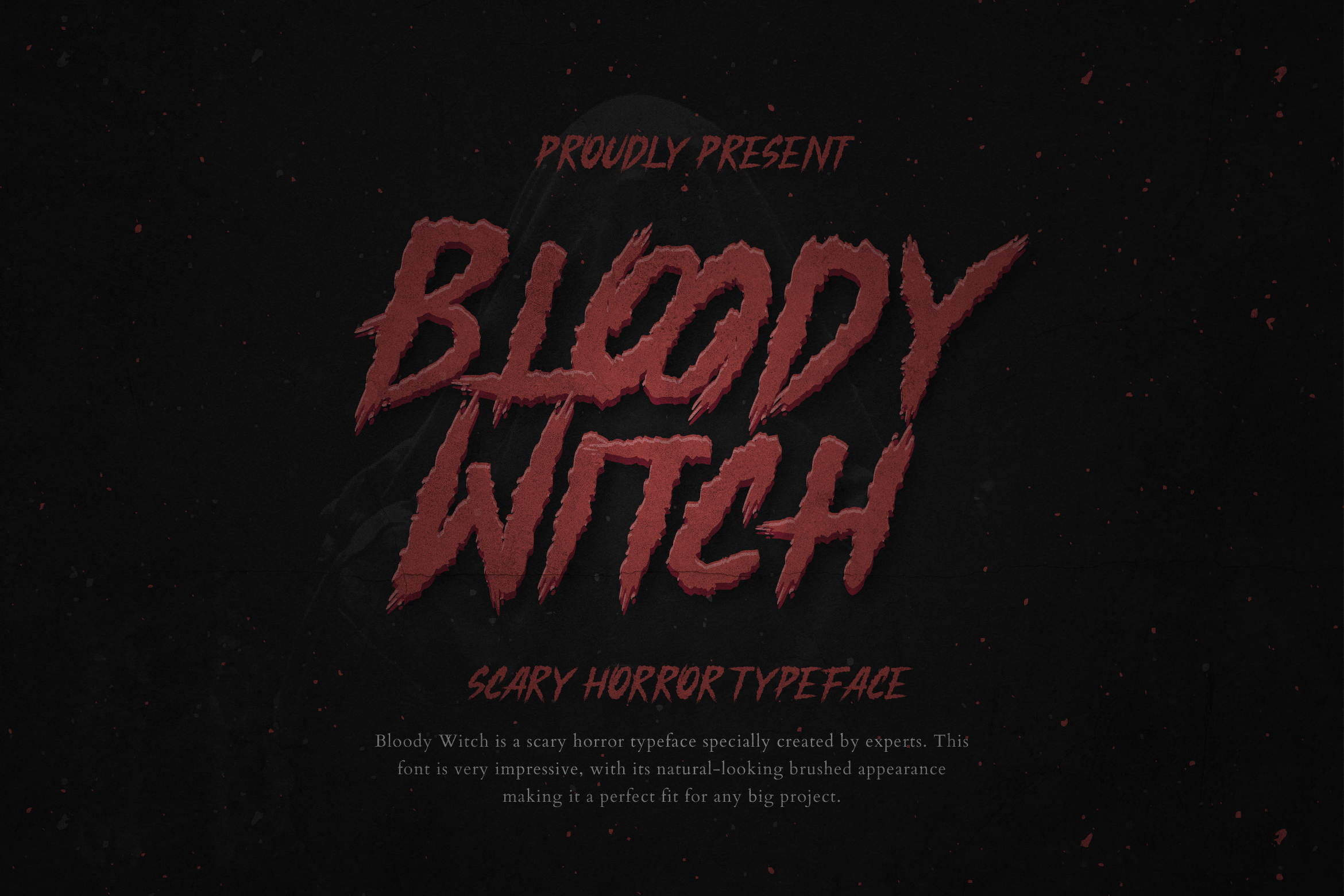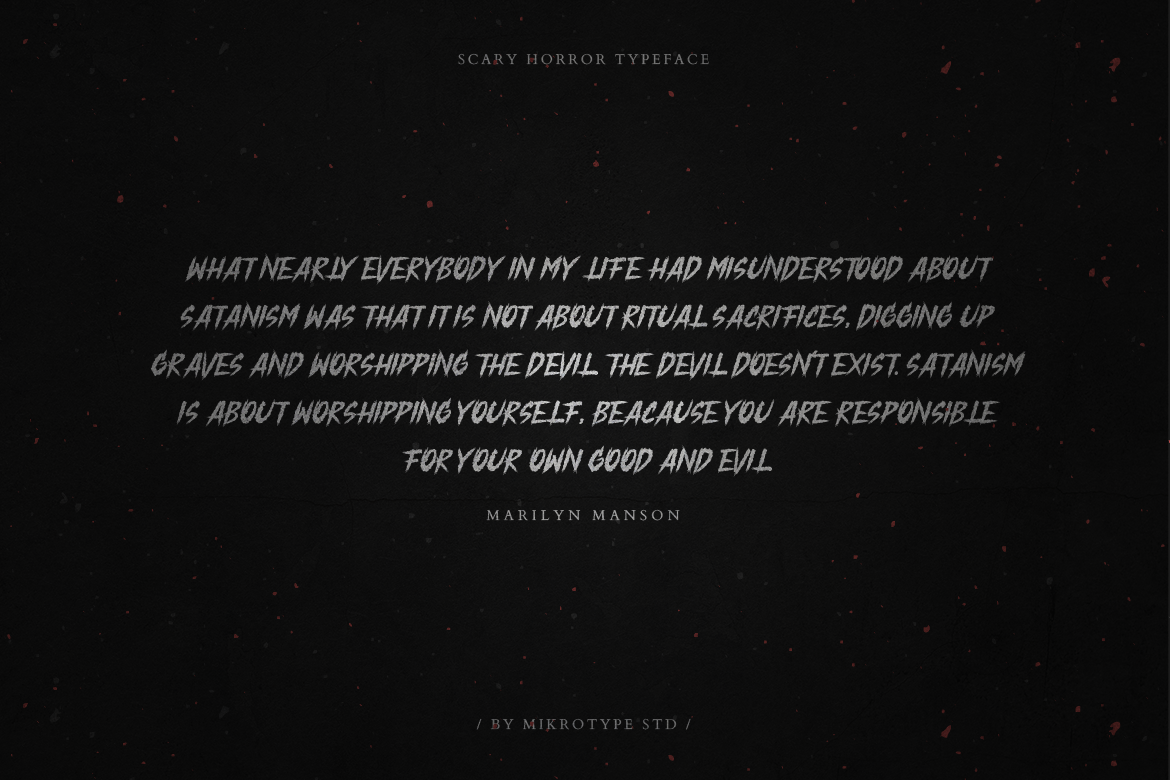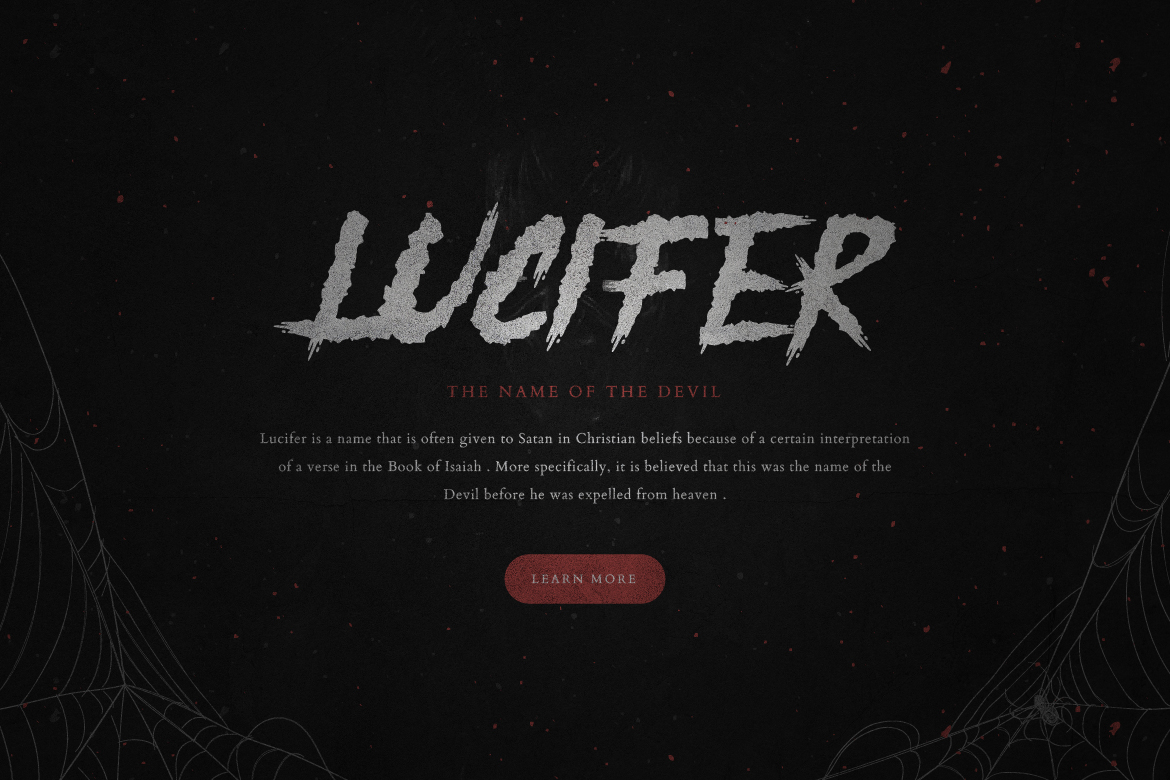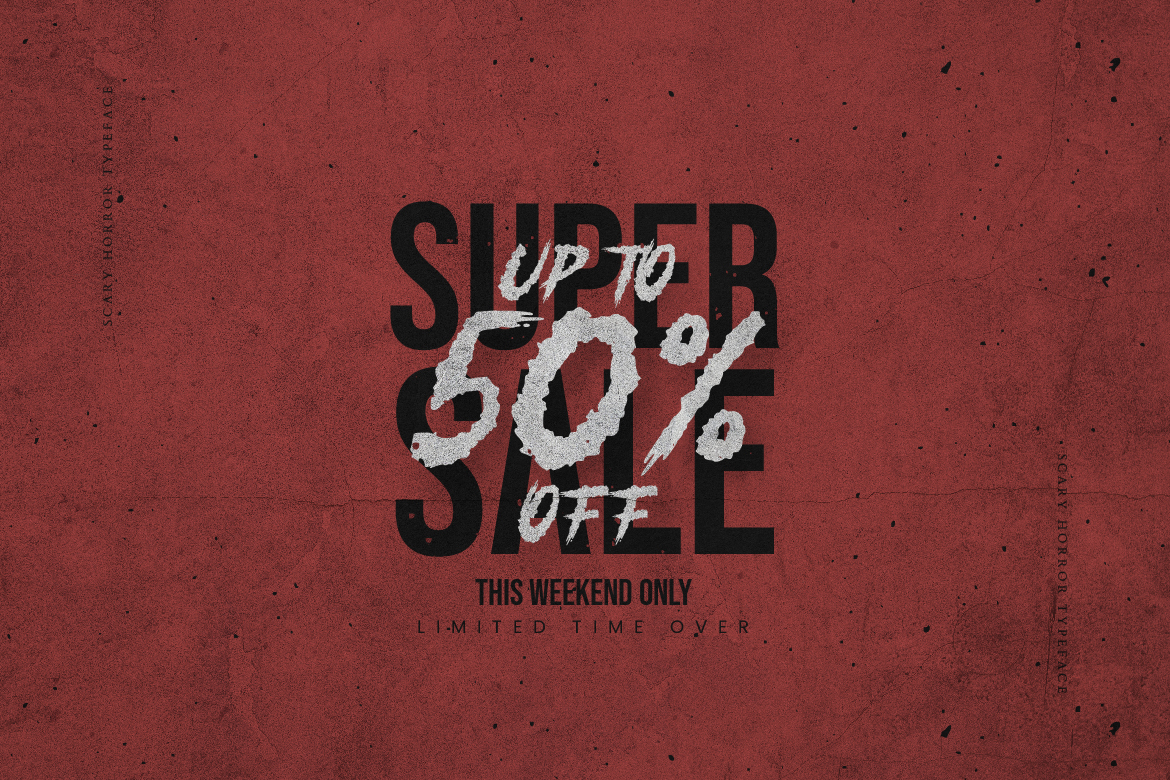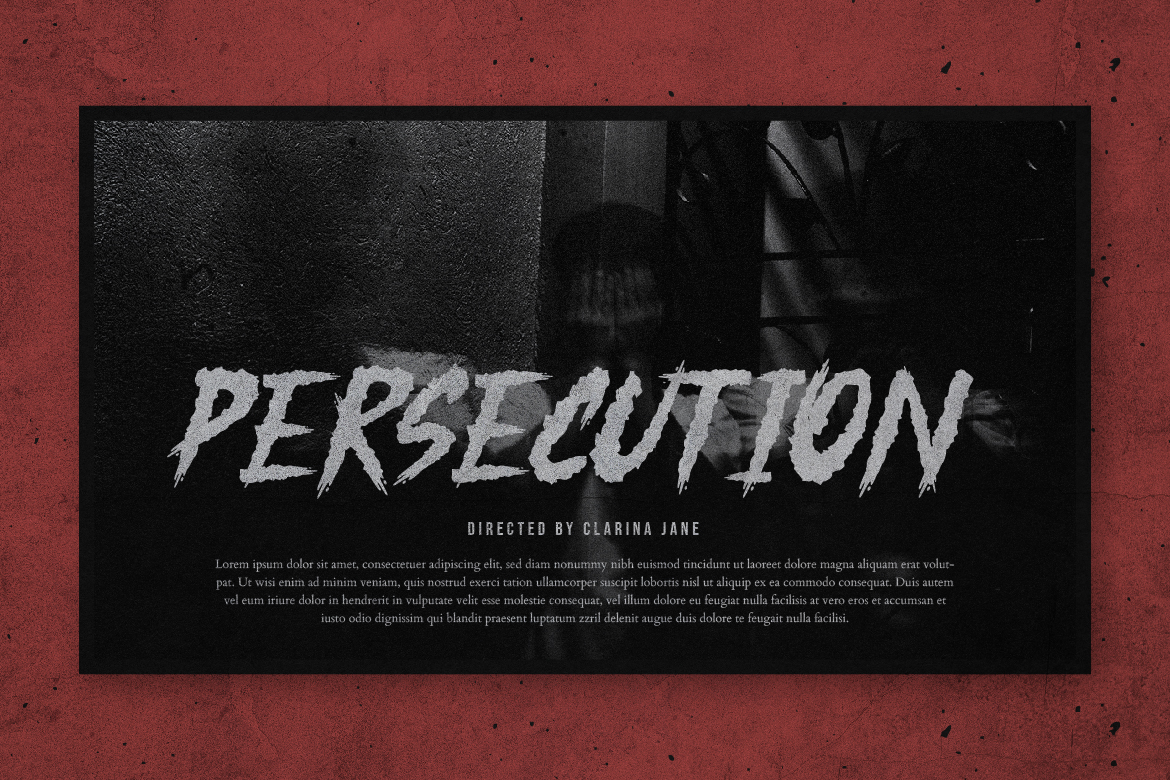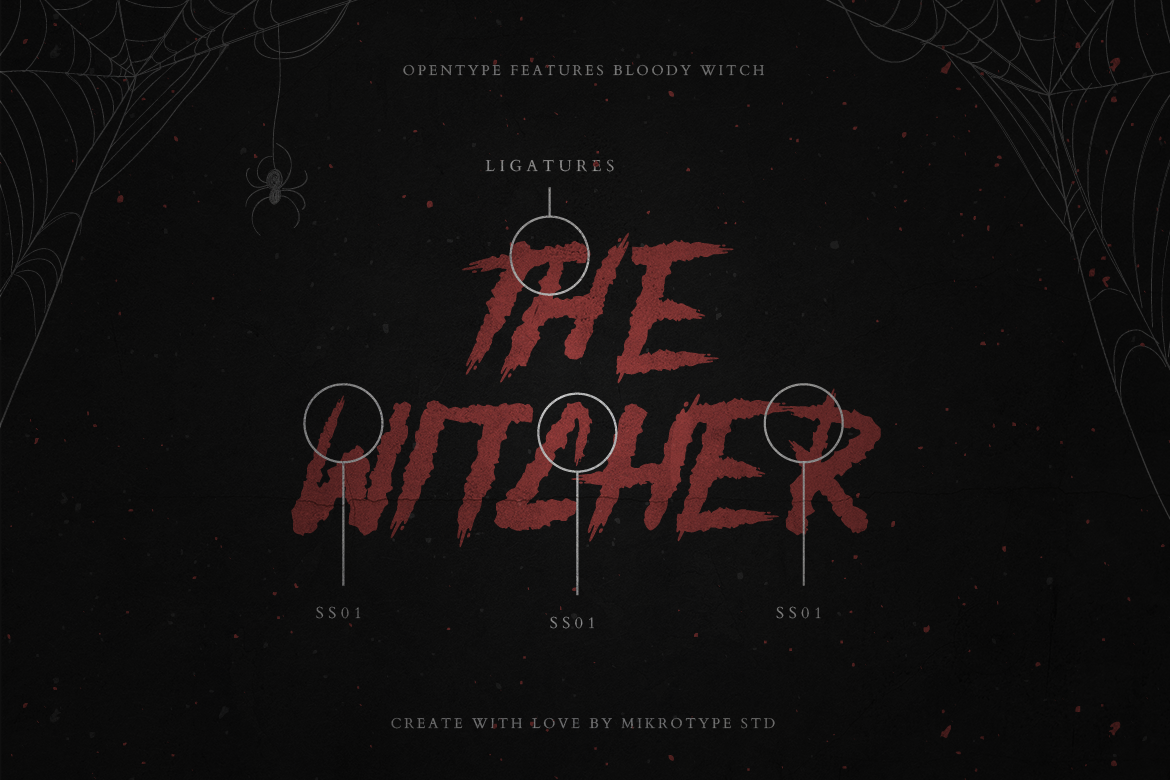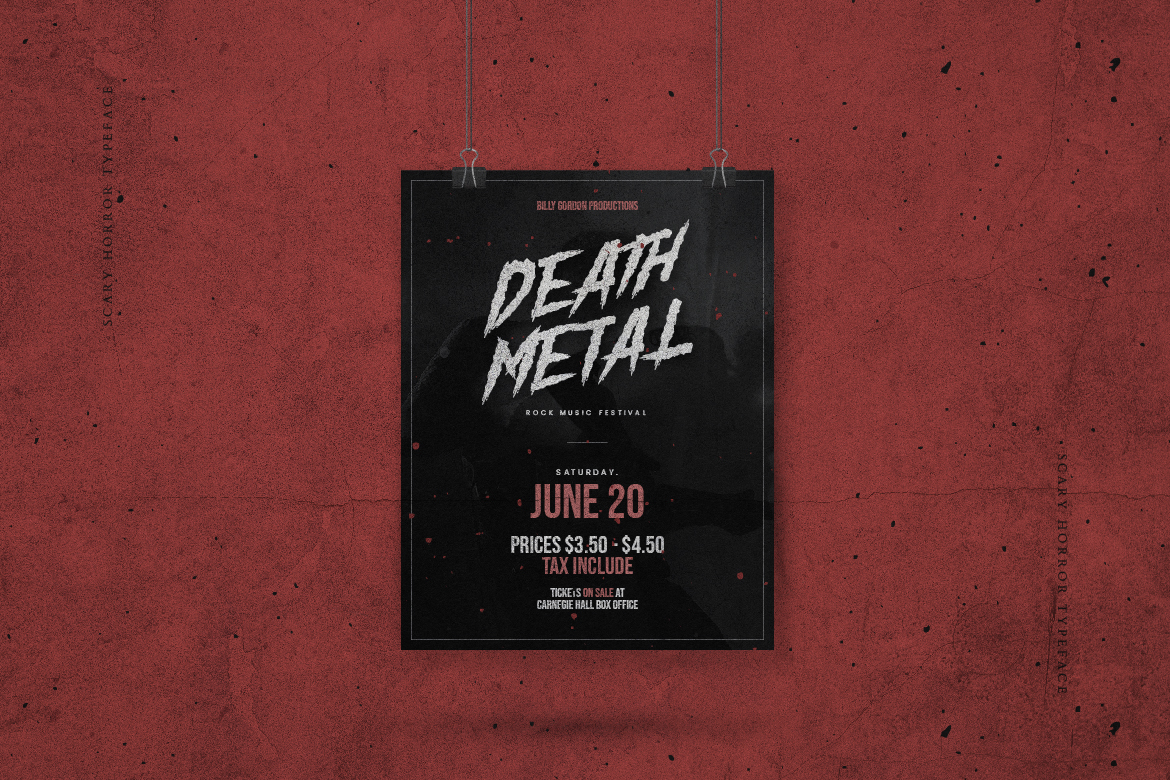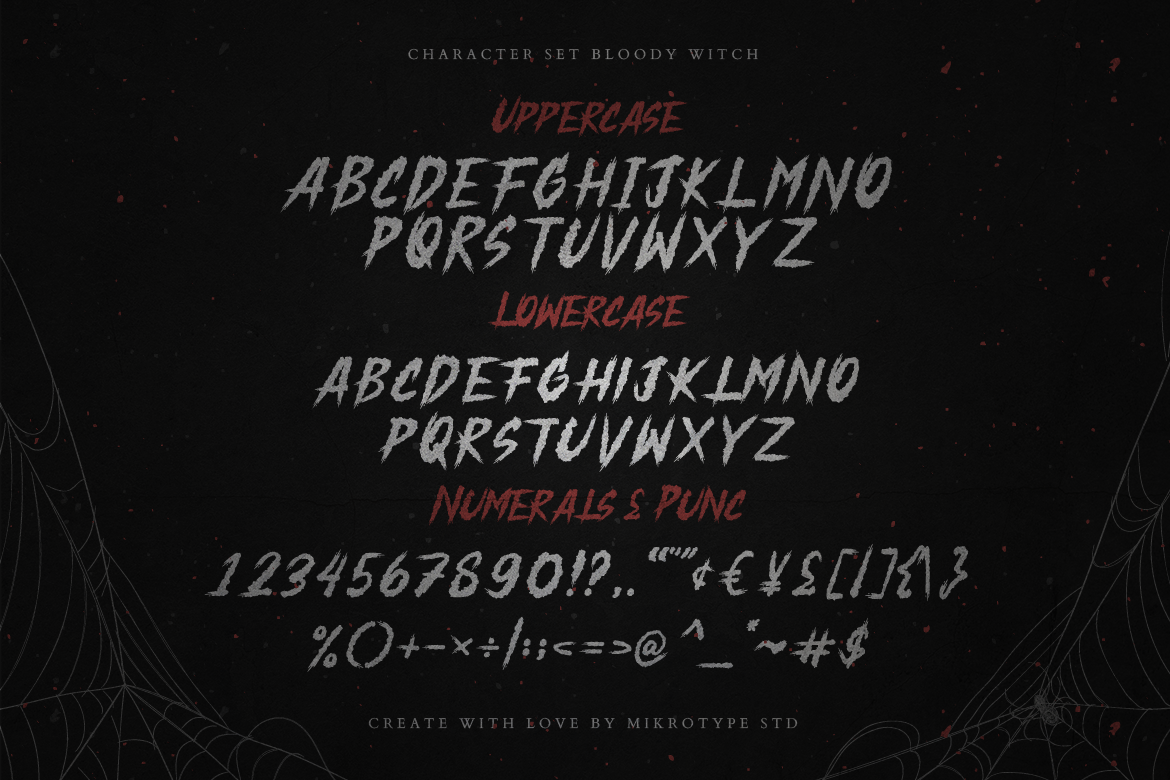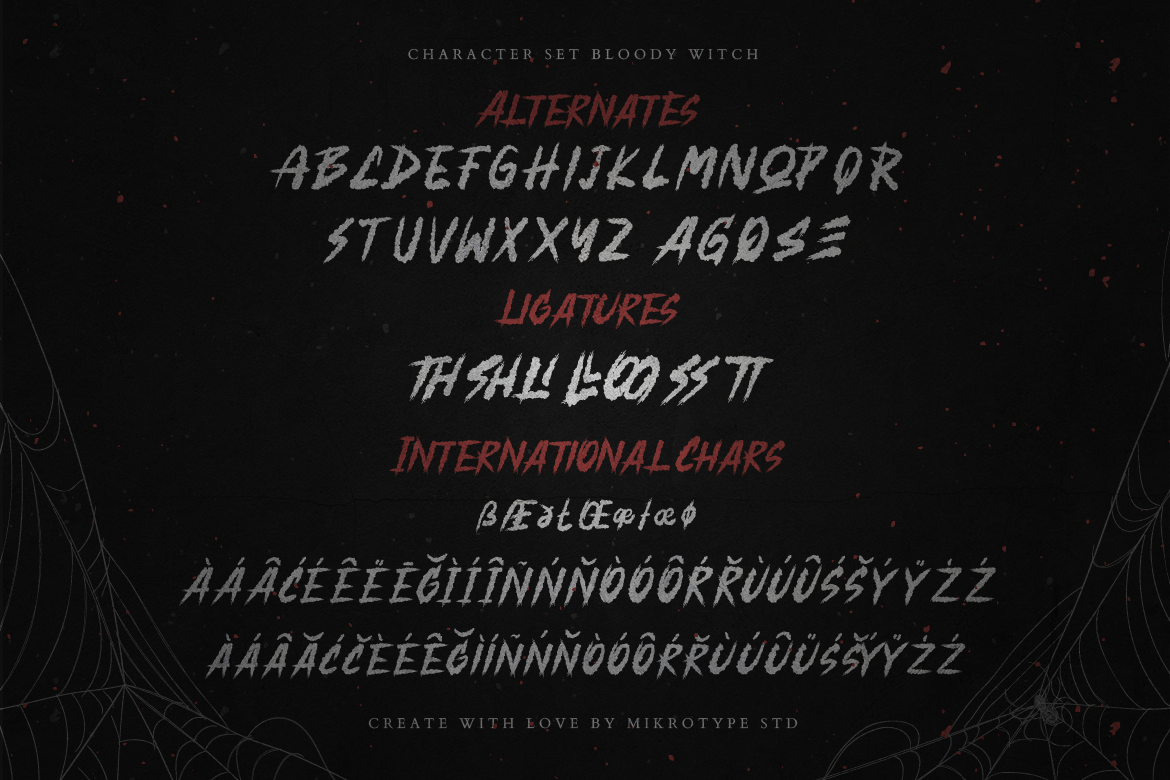
Bloody Witch Horror Instagram Font
Introducing Bloody Witch – A scary horror typeface specially created by experts. This font is very impressive, with its natural-looking brushed appearance making it a perfect fit for any big project. The font is perfect for for movie title, logo, blogging, brand identity, book title, social media, branding, wedding invites, cards or simply use it in your next design project and suitable to use for many occasion.